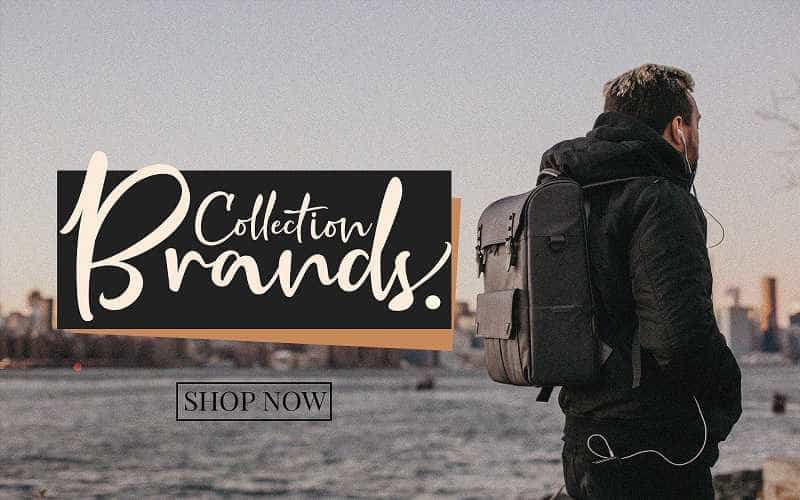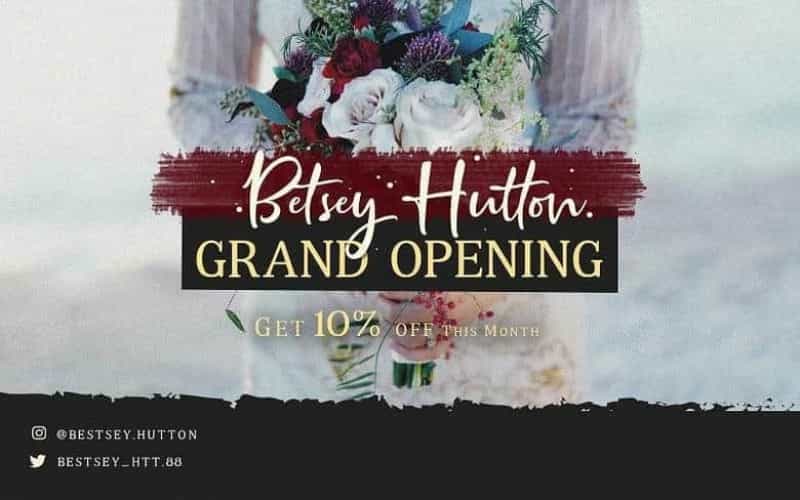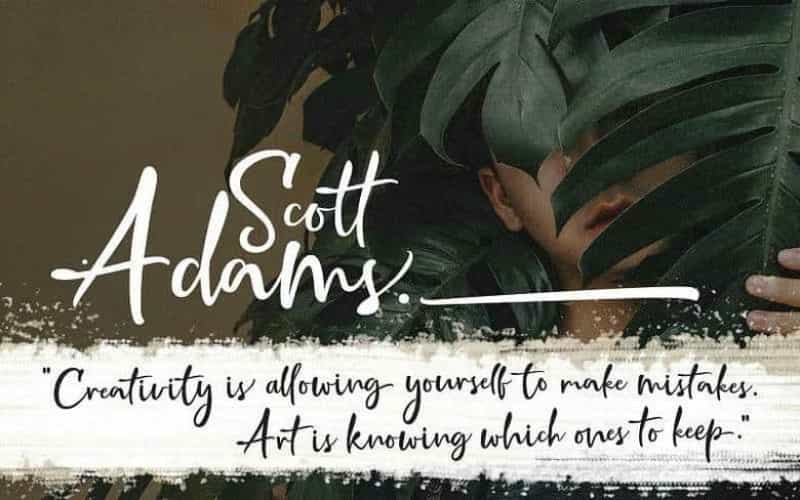
Crolinesy Daggaes has been developed by Cotbada_studio. As a new handwriting modern font pairs more appropriate to their Croline handwritten font family which involves more curves and round shapes. It is ideal for labels, logos, signatures for blogs or packaging designs. Sure, I know you will be glad to use it and include it in the set of your favorite fonts!